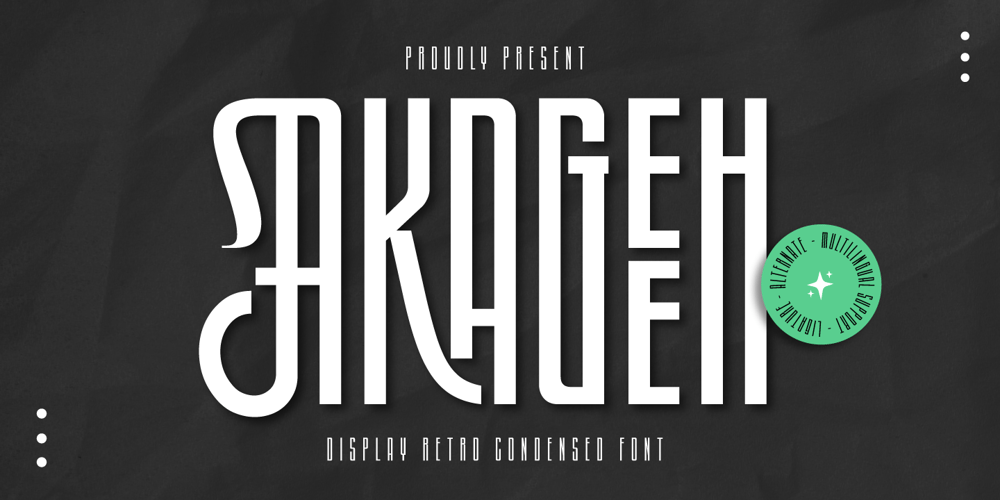
Akageeh
Akageeh font
Akageeh Font Family was designed by Rozikan and published by Twinletter. Akageeh contains 1 styles and family package options. We are pleased to present Akageeh Retro Condensed Sans, a contemporary, elegant, and bold font. Your projects will have a timeless, refined, and contemporary feel thanks to this font. This font is excellent for branding and logo design.Akageeh is a lovely option to add elegance to your designs because of this font’s special qualities, which include ligatures, alternatives, and many others. You can play around with this font easily to produce fancy designs.What’s Included :- All glyphs to fulfil ISO Latin 1- Alternate, ligatures- Simple installation- We recommend using applications supporting OpenType features and Glyphs panels like many Adobe apps and Corel Draw so that you can see and access all Glyph variations.- PUA Encoded Characters – Fully accessible without additional design software.- Fonts include multilingual support